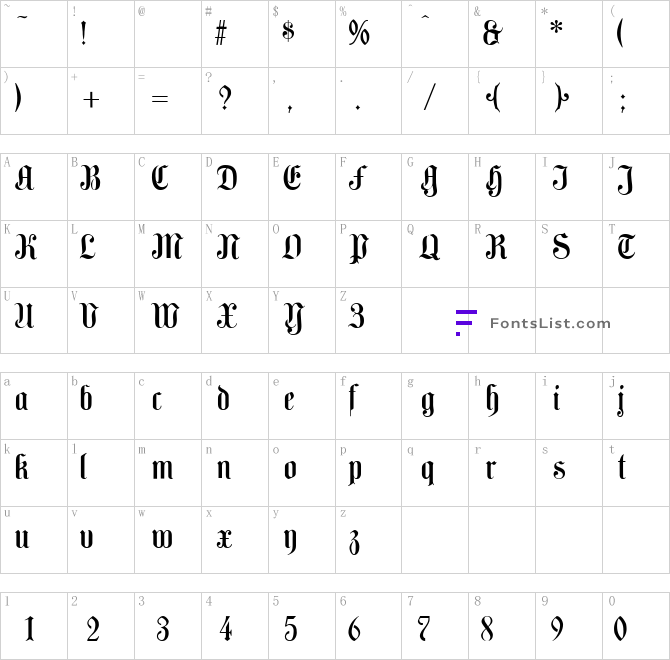
- Font Name:CamdenText
CamdenText-Regular.ttf is a very beautiful artistic font, CamdenText-Regular.ttf is widely used in the design and printing of various books and pictures,CamdenText-Regular.ttf has a strong visual impact,CamdenText-Regular.ttf is a commonly used font in newspapers, magazines and books, and is used in posters, e-commerce Poster design, store design, logo design, font design and other fields.CamdenText-Regular.